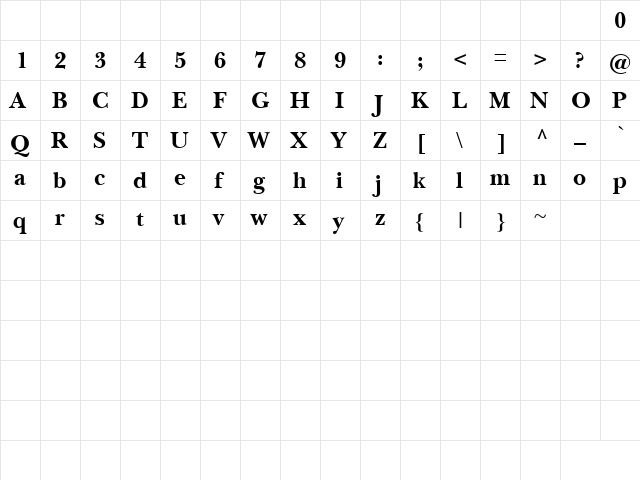
Bagad Bold Tryout Regular
Design Context for Bagad Bold Tryout Typeface
Bagad Bold Tryout is a composed and adaptable typeface that performs quietly and consistently across a wide range of design contexts. The heavy weight commands attention and anchors typographic hierarchies.